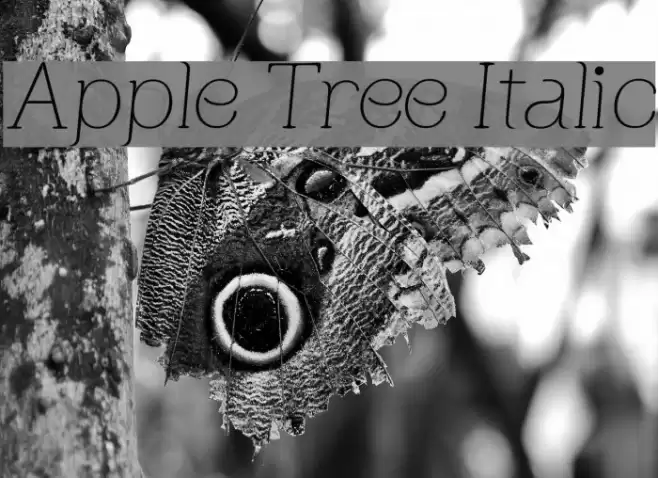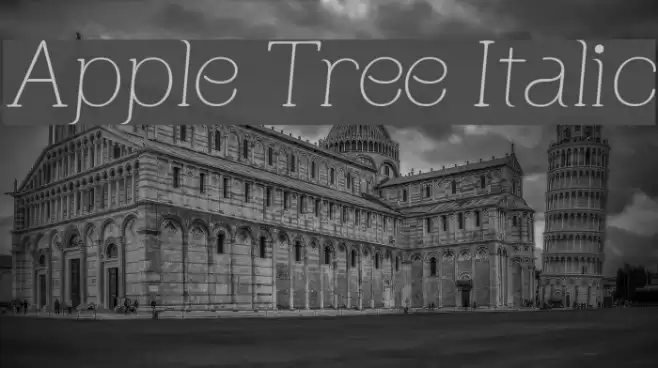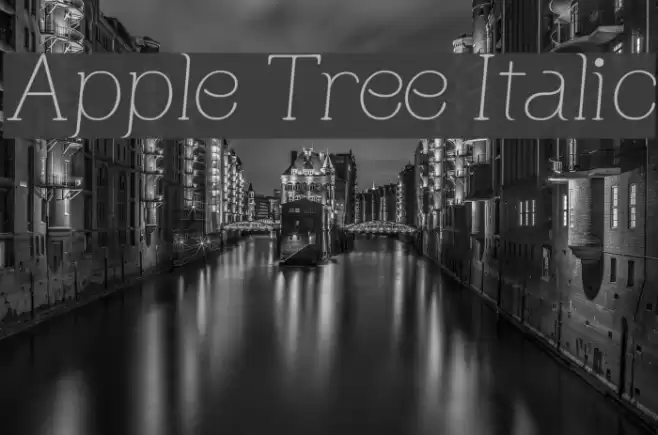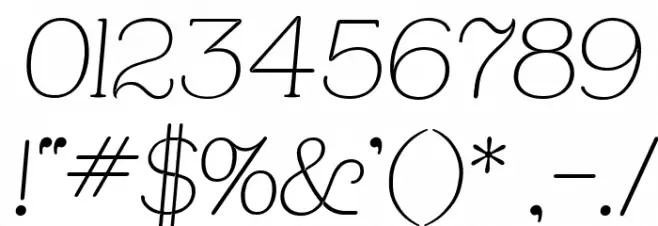
Apple Tree Italic Font
Apple Tree Italic Description
This font features a delicate and elegant design with a slight slant, giving it an italicized appearance. The characters are thin and elongated, with a graceful flow that adds a touch of sophistication. The uppercase letters are tall and slender, while the lowercase letters maintain a consistent height, creating a harmonious balance. The numerals are distinct and easy to read, complementing the overall style. Special characters are included, each designed with the same attention to detail, making this font versatile for various applications.
A delicate and elegant italic font with a graceful flow from Uncategorized fonts.
- Proposed Projects: Ideal for wedding invitations, elegant branding, and sophisticated editorial design.
- Overall Style: Elegant
- Use Case: Headlines, Invitations, Branding